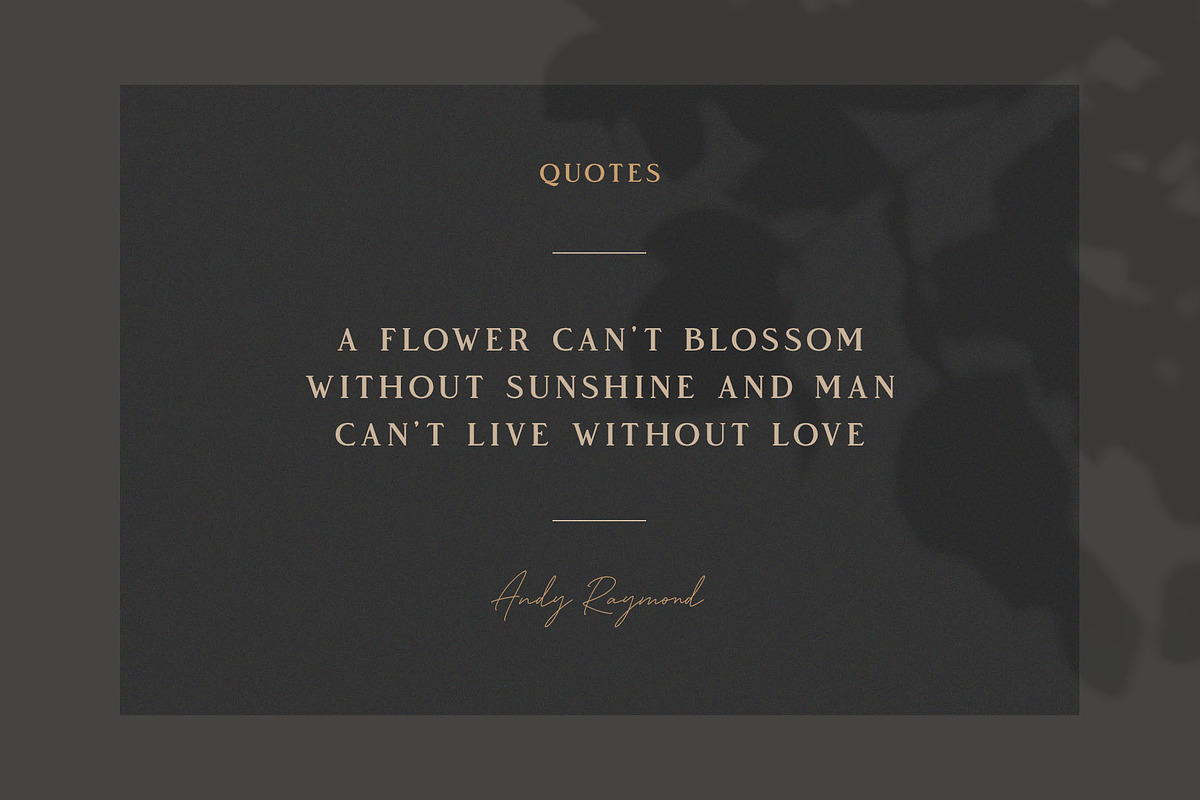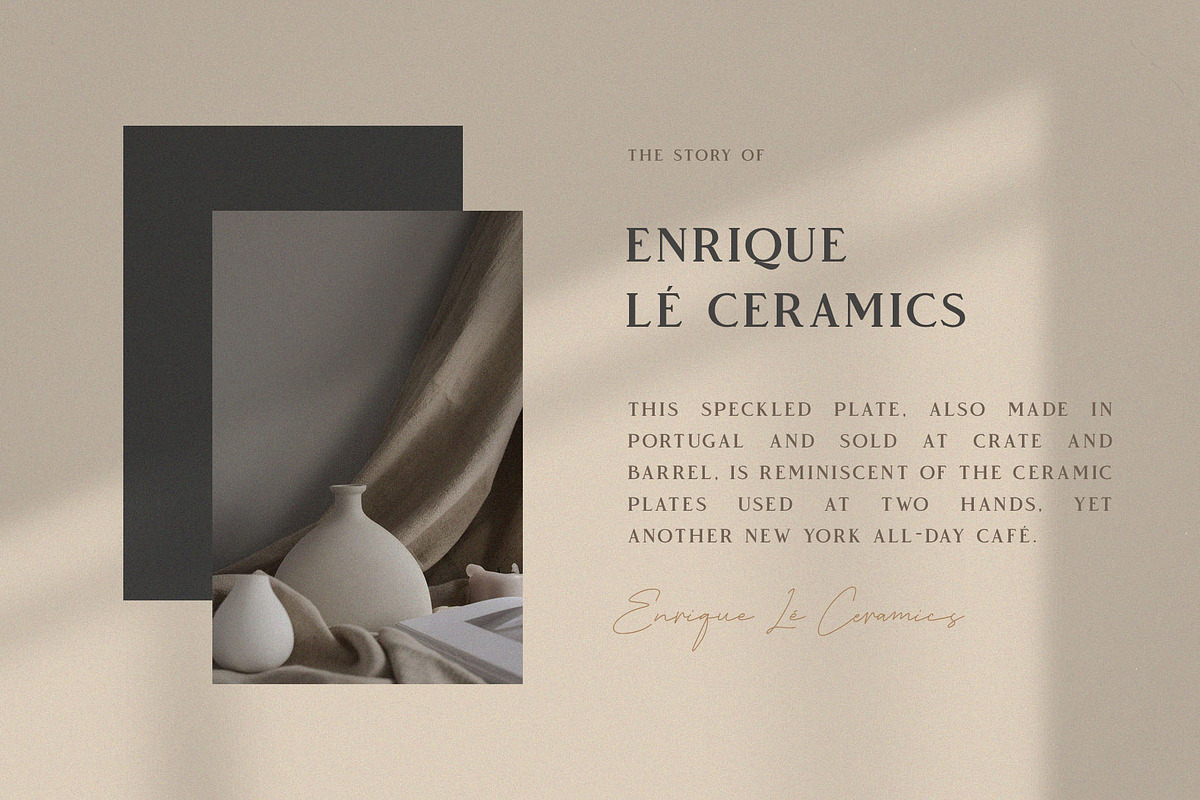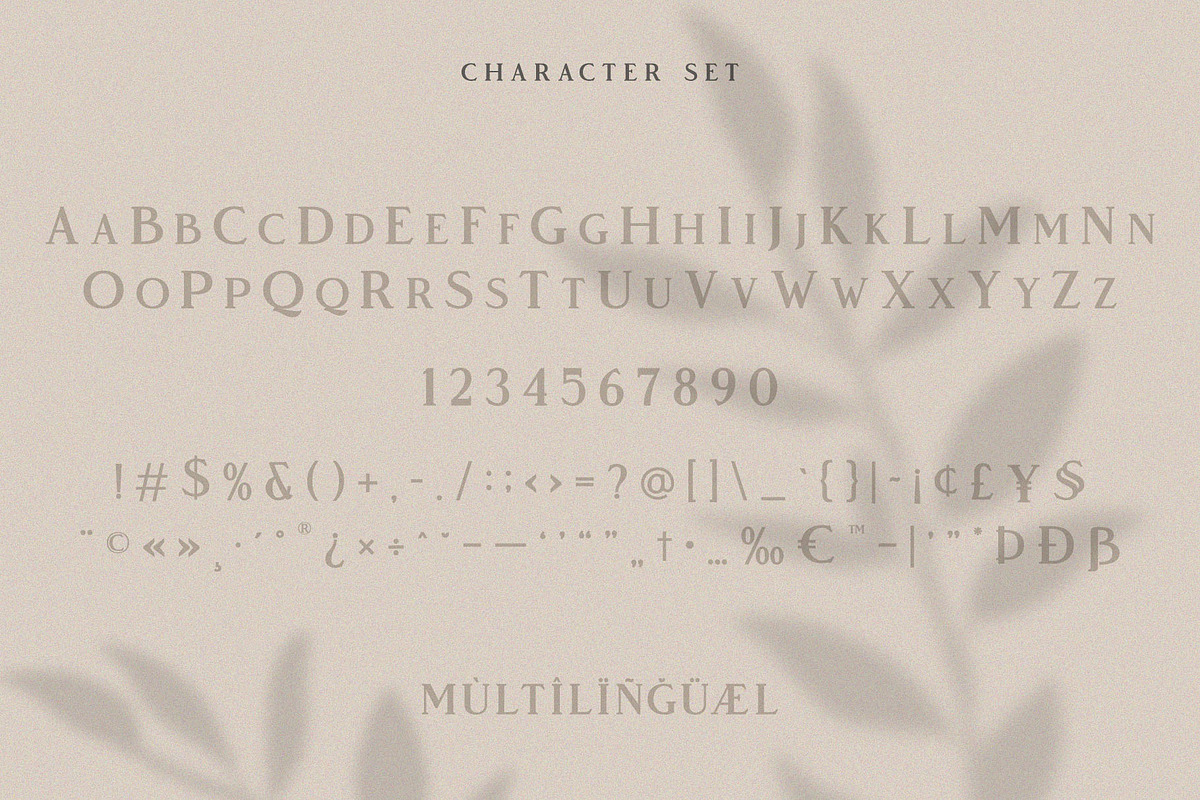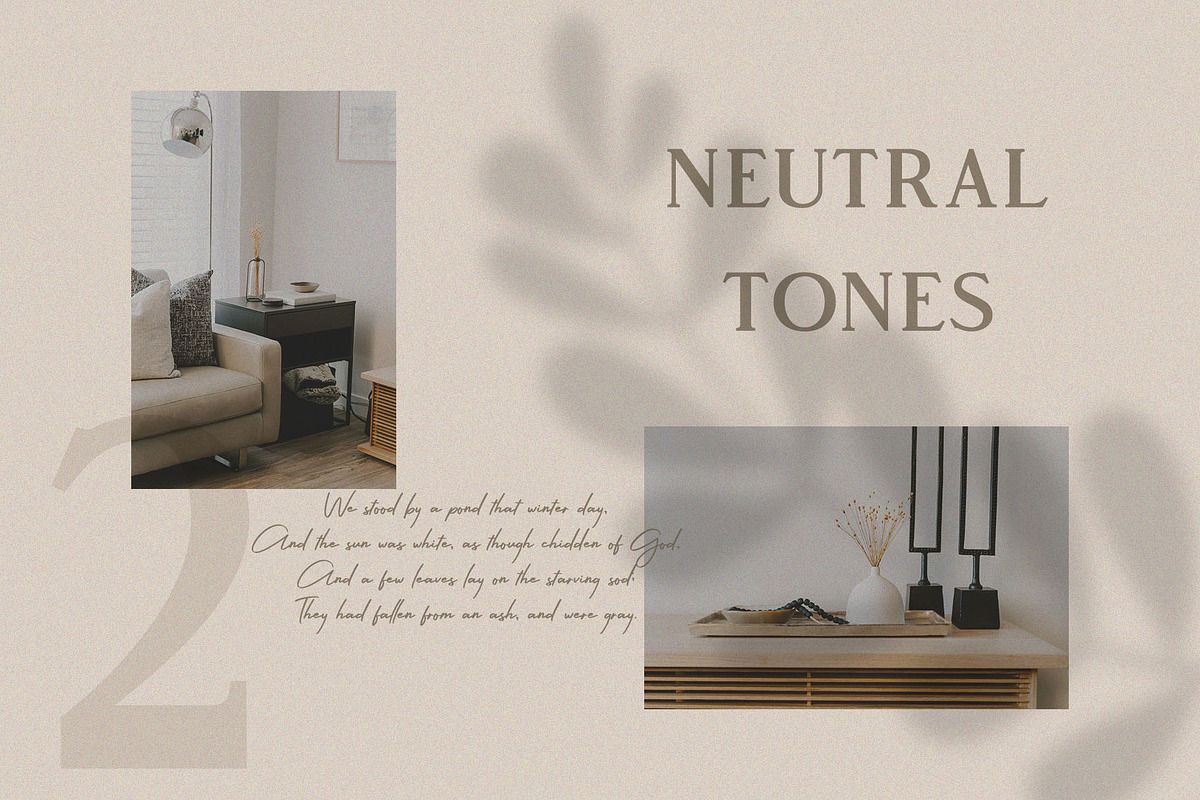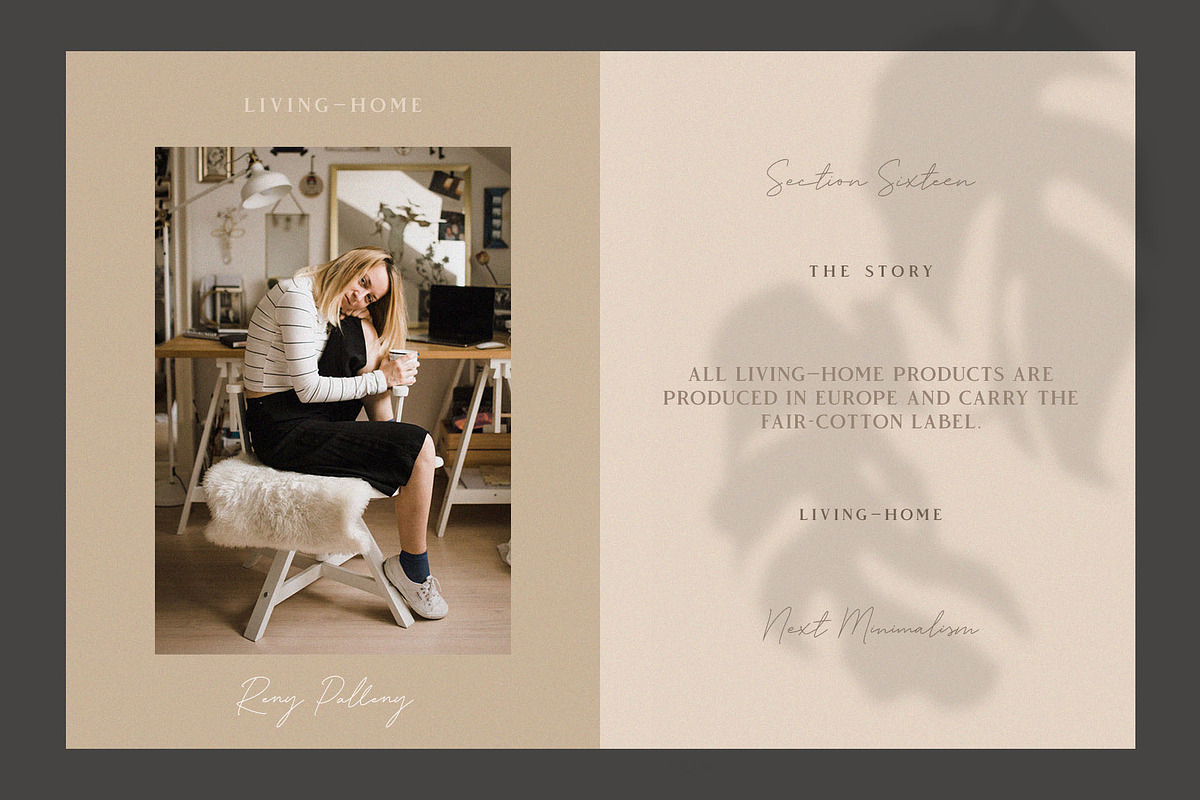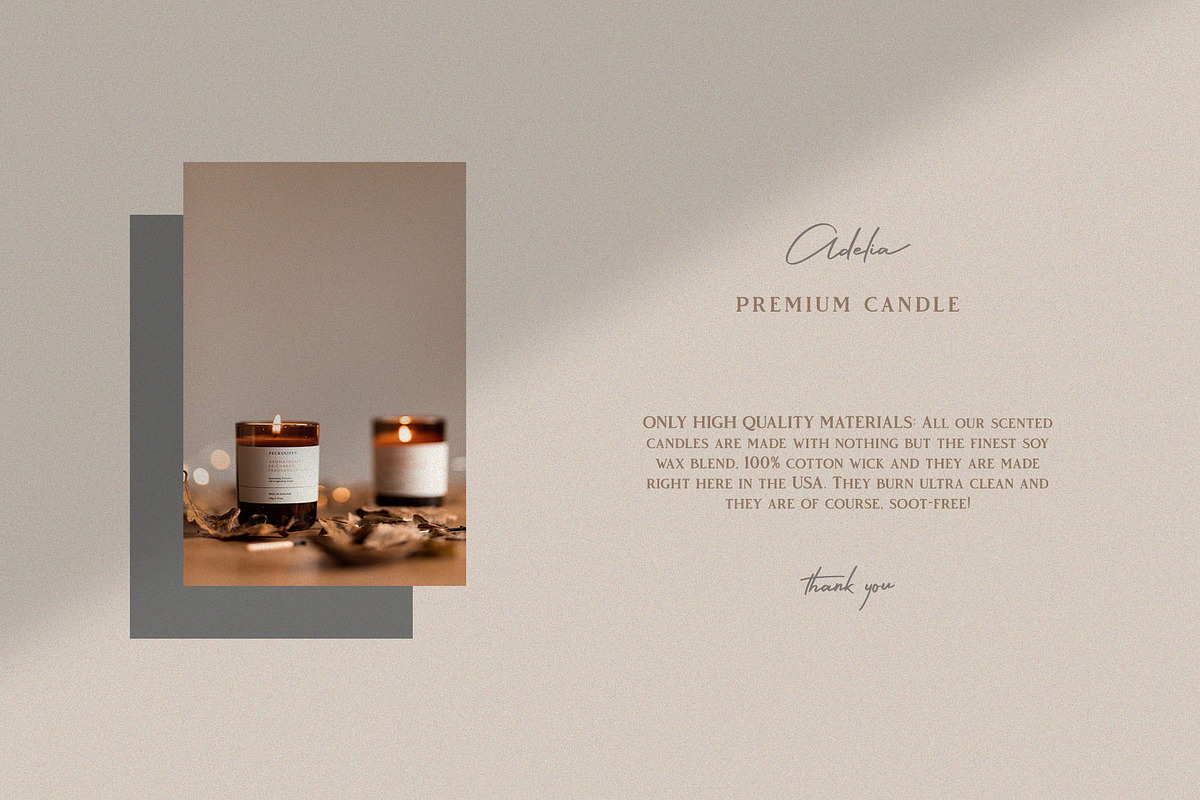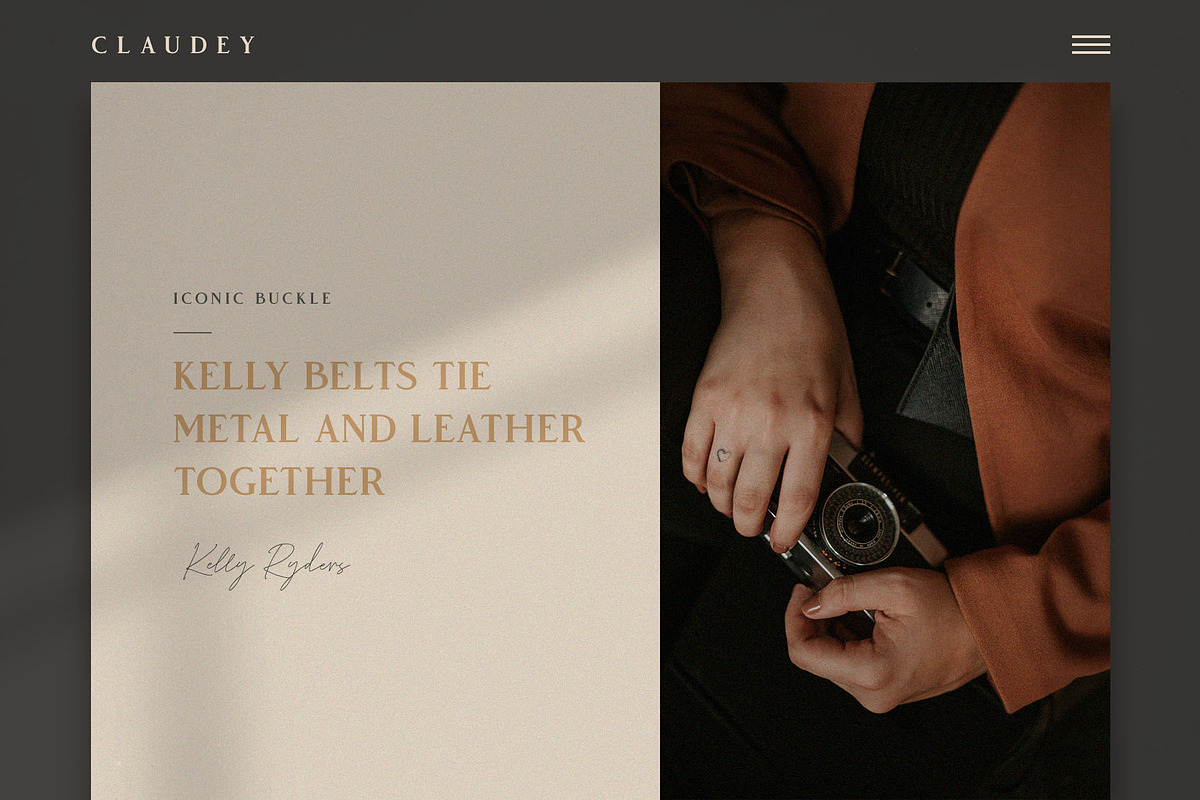
Vendeur - Elegant Serif Font
Introducing New Font : Vendeur - Elegant Serif Font
Vendeur - Elegant Serif Font is a modern serif font family whose design refers us to the style of modern serif. The distinctive features of Vendeur - Elegant Serif Font are the relatively low contrast of strokes, the slightly squarish shapes of round characters and the emphasized business like simplicity.
Vendeur - Elegant Serif Font has been crafted from scratch with a structural logic of its own: a fusion of pure geometry and optical balance. By combining a variety of styles Vendeur - Elegant Serif Font is suitable for Logo, greeting cards, quotes, posters, branding, name card, stationary, design title, blog header, art quote, typography
Vendeur - Elegant Serif Font also suitable for art, modern envelope lettering or book design, happening style like handdrawn design or watercolor design theme, craft design, any DIY project, book title, wedding font, pop vintage design, or any purpose to make our art/design project look pretty and trendy.
1. All Caps Characters
2. Standard Ligatures
3. Numerals & Punctuations (OpenType Standard)
4. Accents (Multilingual characters)AÀÁÂÃÄÅCÇDÐEÈÉÊËIÌÍÎÏNÑOØÒÓÔÕÖUÙÜÚÛWYÝŸỲŸÆŒßÞþ
Why Vendeur - Elegant Serif Font is worth a look